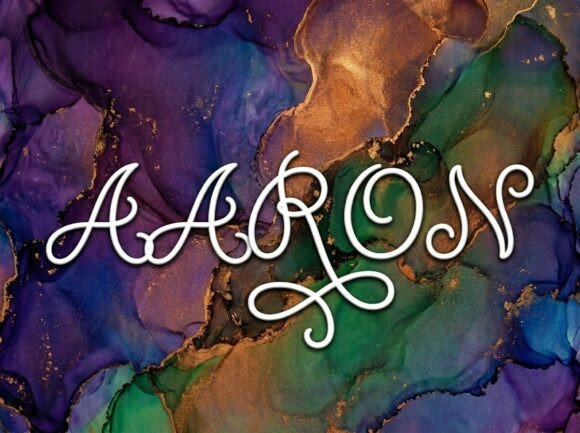
The Magical World of Aaron Font: A Designer’s Delight
I still remember the design project that led me to discover Aaron Font. I was working on a fantasy novel cover, and my client wanted a title that would transport readers to a mystical world. I scoured font libraries, but nothing seemed quite right – until I stumbled upon Aaron. Its elegant, monolinear script letterforms and dramatic flourishes instantly captured the essence of the story. I knew I’d found the perfect fit. ✨
A Honest Review of Aaron Font
- ✨ Elegant, sophisticated design with a mystical-and-whimsical soul
- ✅ Dramatic, sweeping flourishes and curled terminals that evoke magic and movement
- ✅ Crisp white outline and rhythmic, airy silhouette for high-impact visuals
- ✅ Perfect for fantasy novel titles, mystical branding, ethereal invitations, and social media headers
While Aaron Font is a stunning addition to any design project, there are a few things to keep in mind: ⚠️
- 🤔 Limited use of lowercase letters, which may require creative workarounds
- ⚠️ May not be suitable for body text due to its display-focused design
The Story Behind Aaron Font
Aaron Font was designed with the intention of capturing the essence of fantasy and mysticism. Its creator drew inspiration from ancient mystical symbols, elegant calligraphy, and the whimsical world of fairy tales. The result is a font that transports readers to a world of wonder and enchantment. 🌟
Q: What type of projects is Aaron Font best suited for?
A: Aaron Font is perfect for fantasy novel titles, mystical branding, ethereal invitations, and social media headers that require a touch of magic and wonder.
Q: Can I use Aaron Font for body text?
A: While Aaron Font is a stunning display font, it may not be suitable for body text due to its elegant, cursive design and limited use of lowercase letters.
Q: Does Aaron Font support OpenType features?
A: Yes, Aaron Font supports OpenType features, including stylistic alternates, glyphs, and ligatures, which can be accessed in compatible design software.